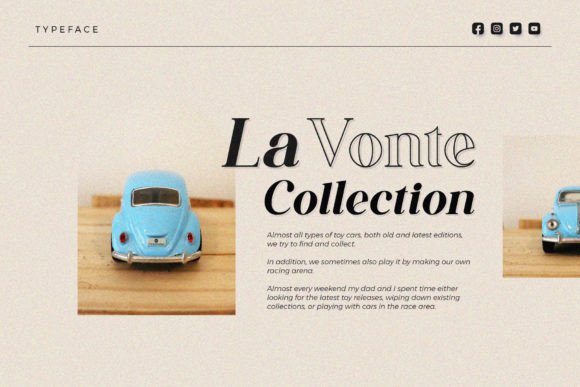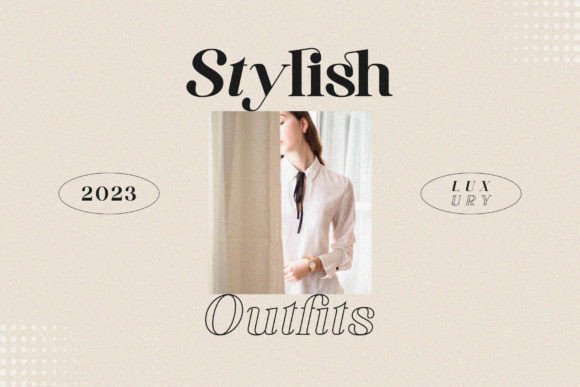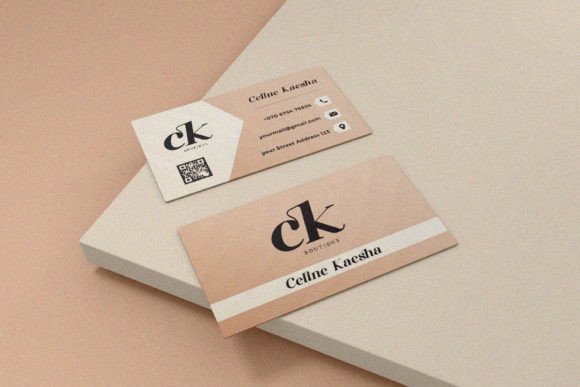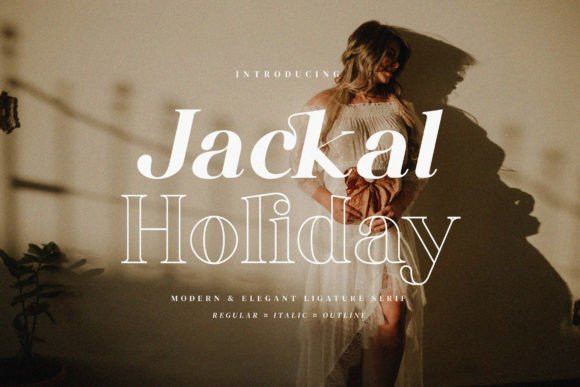
Introduction to Jackal Holiday Font
Jackal Holiday is a stylish ligature serif family typeface inspired by the famous minimalist logo.
It is perfect for designing templates, brochures, videos, advertising branding, logos, and more .